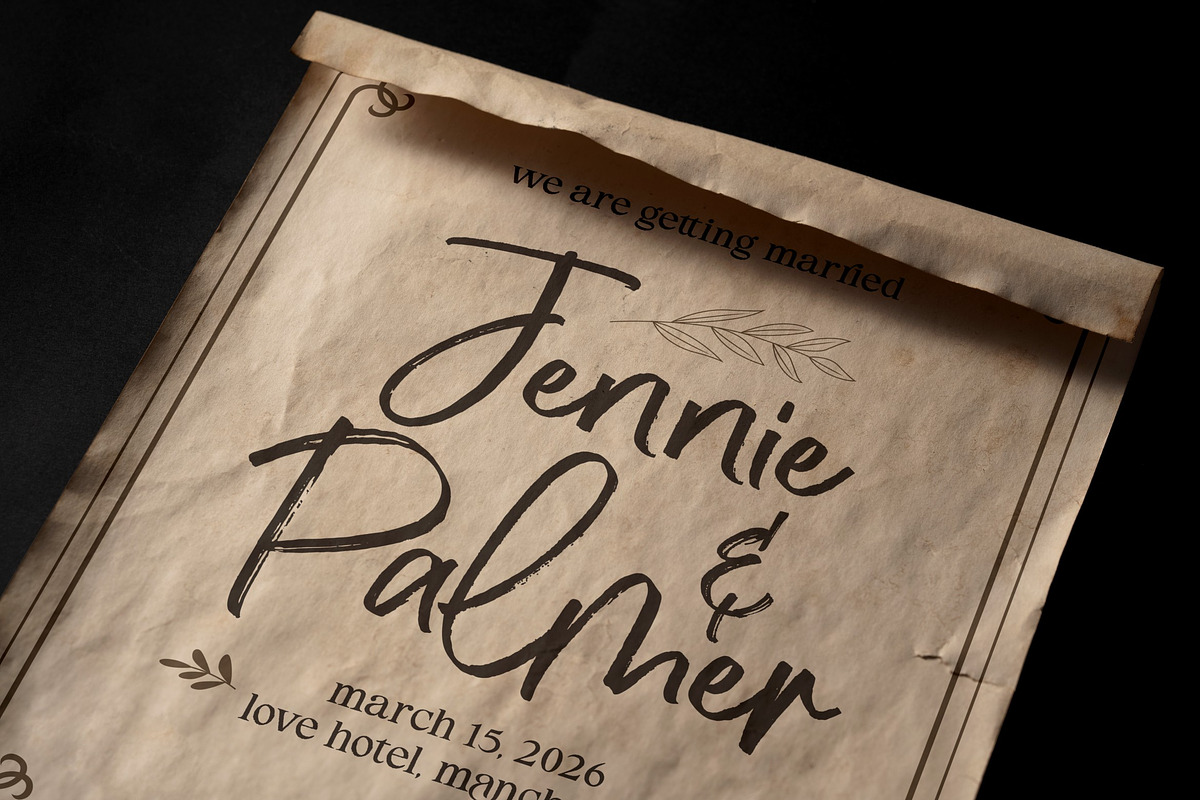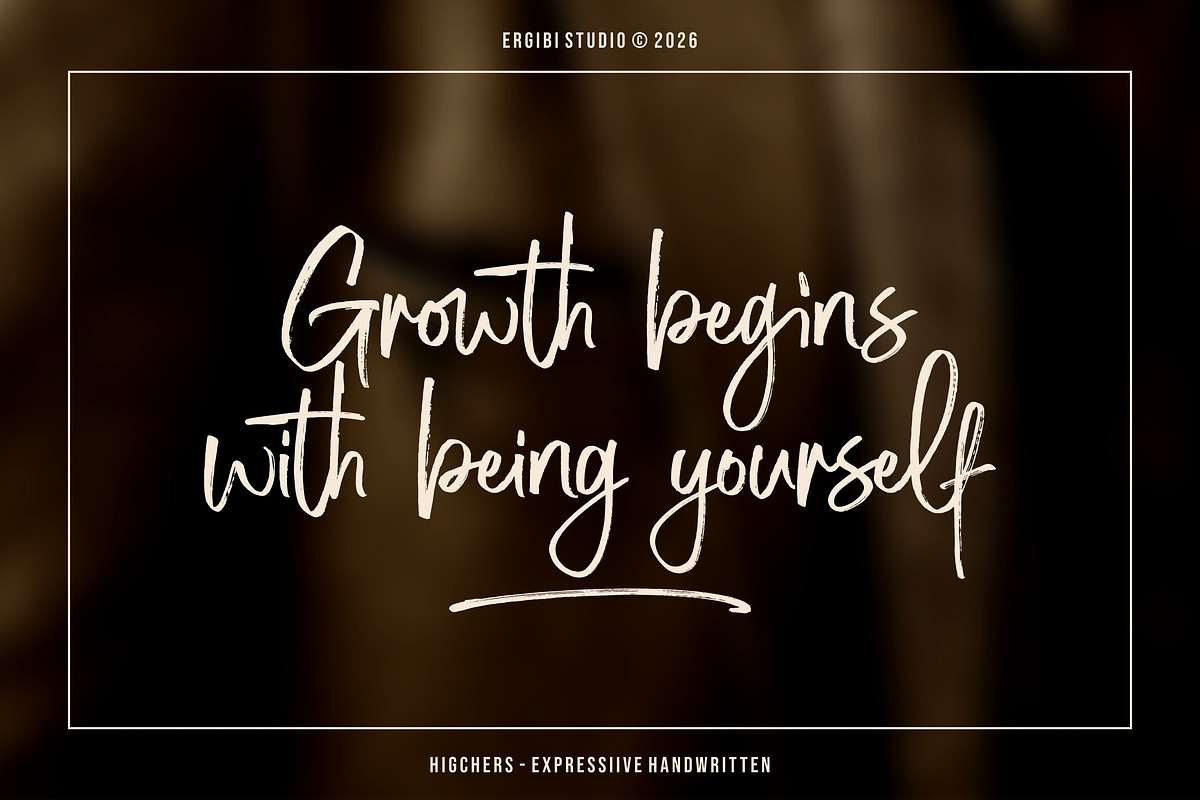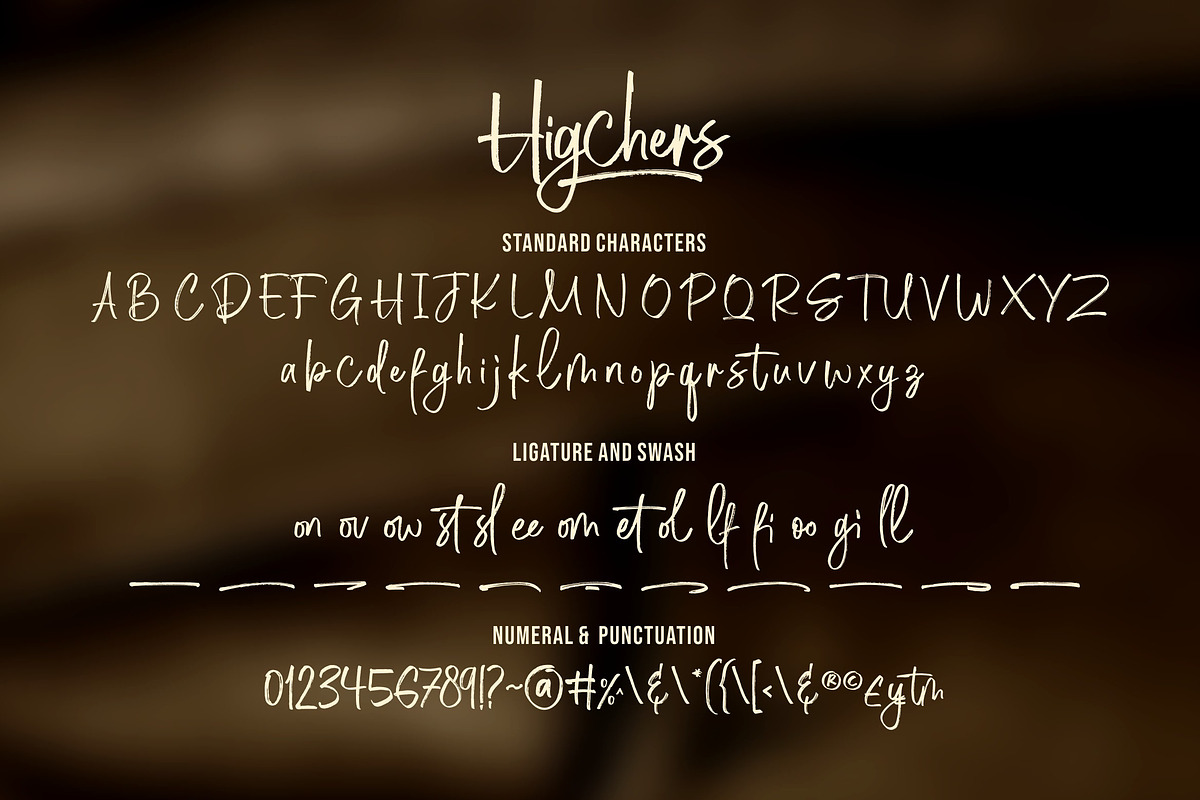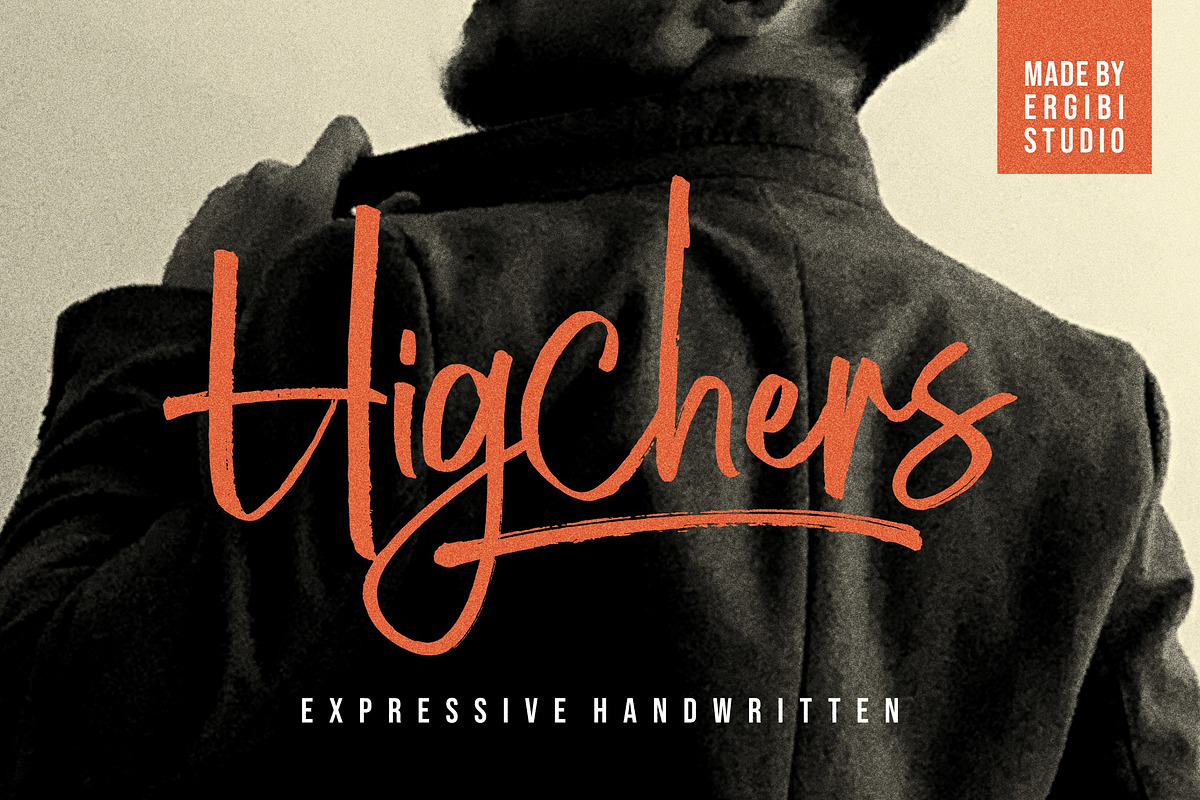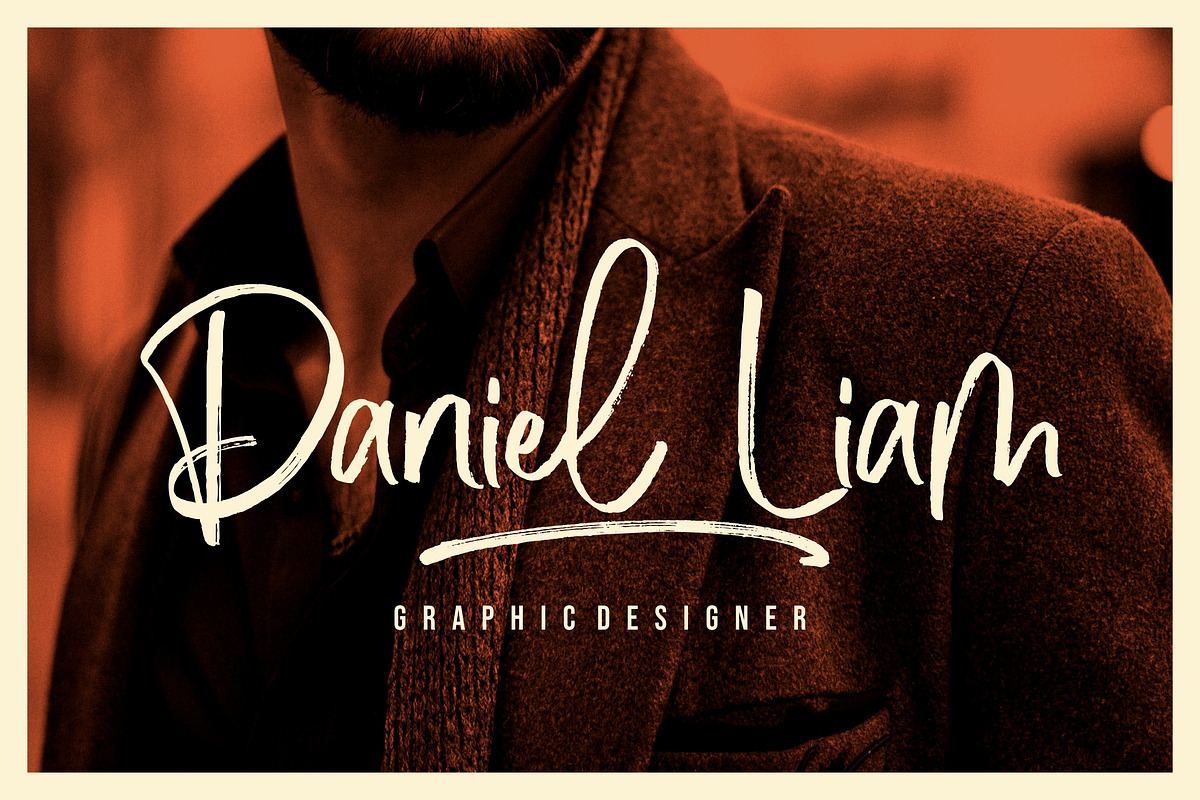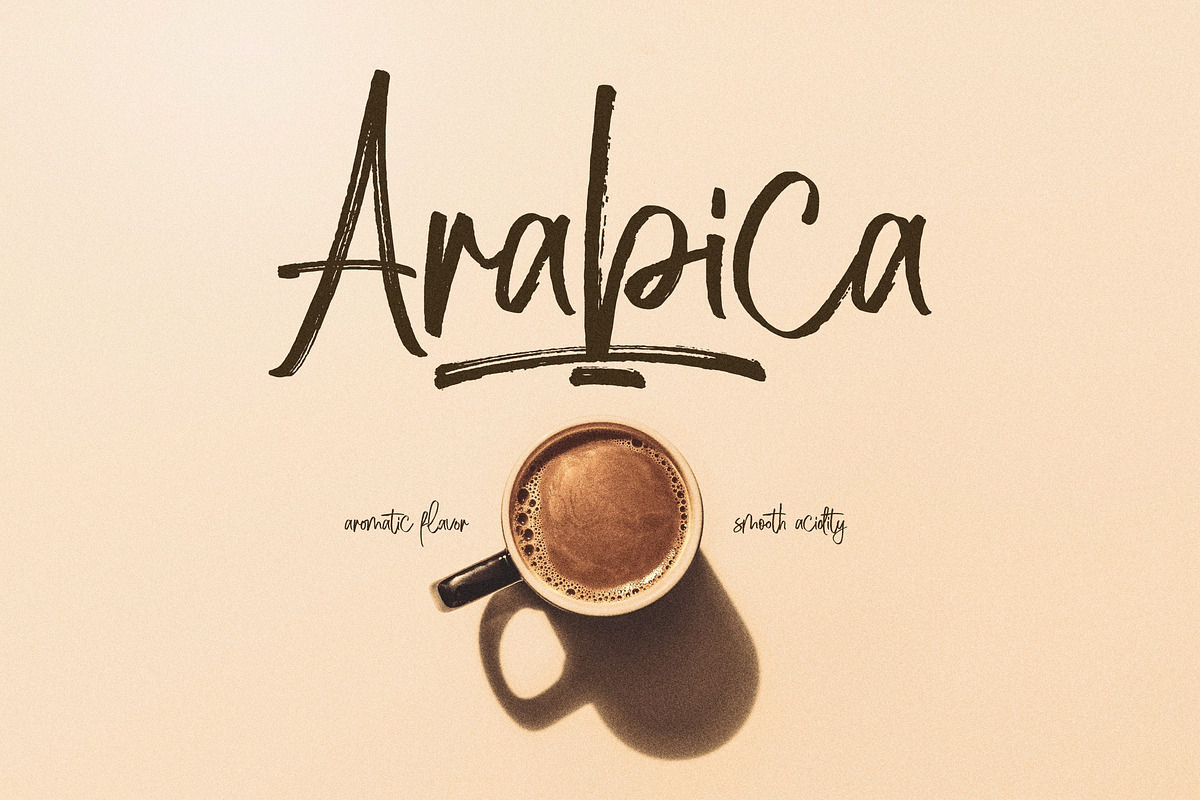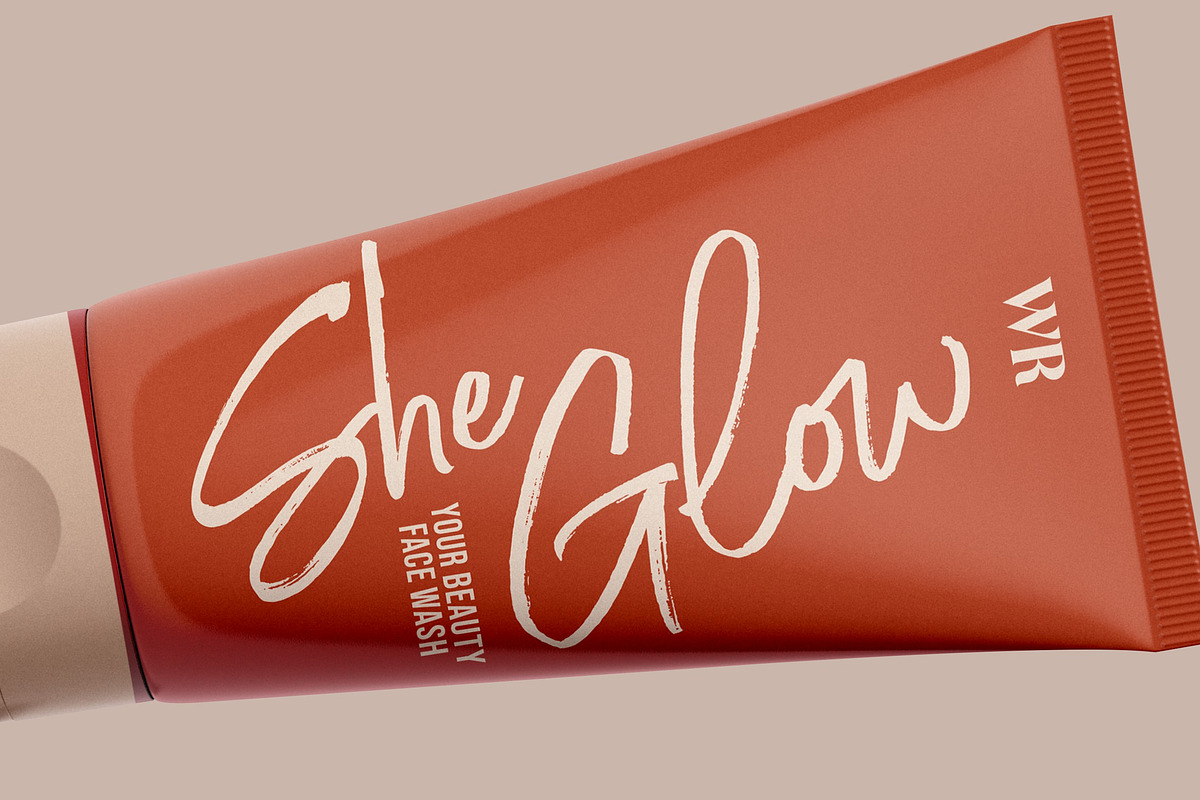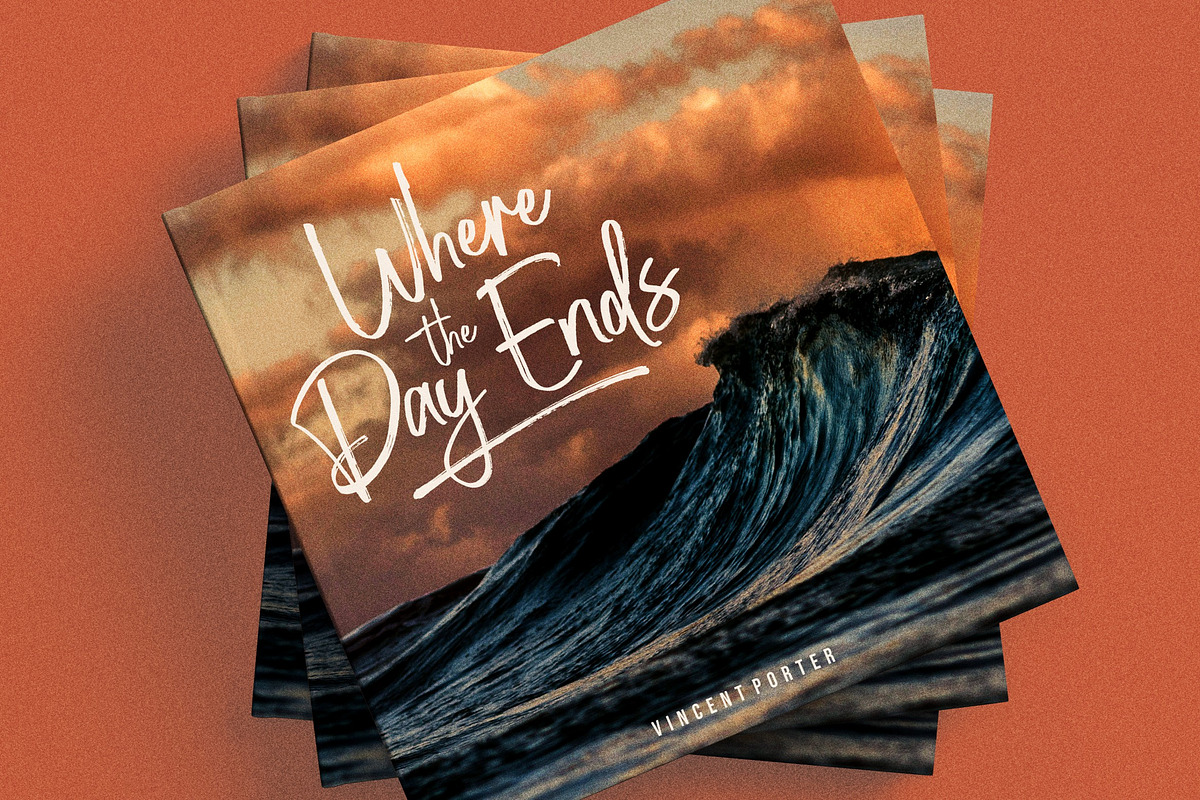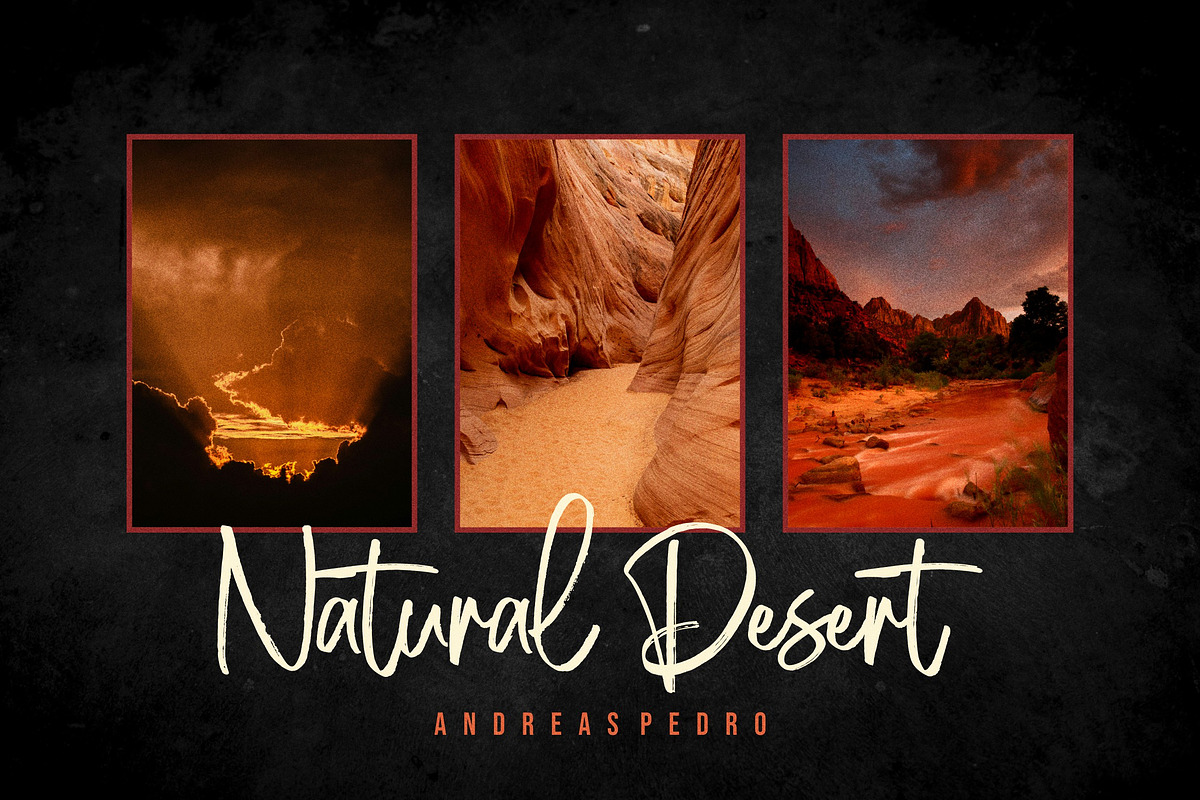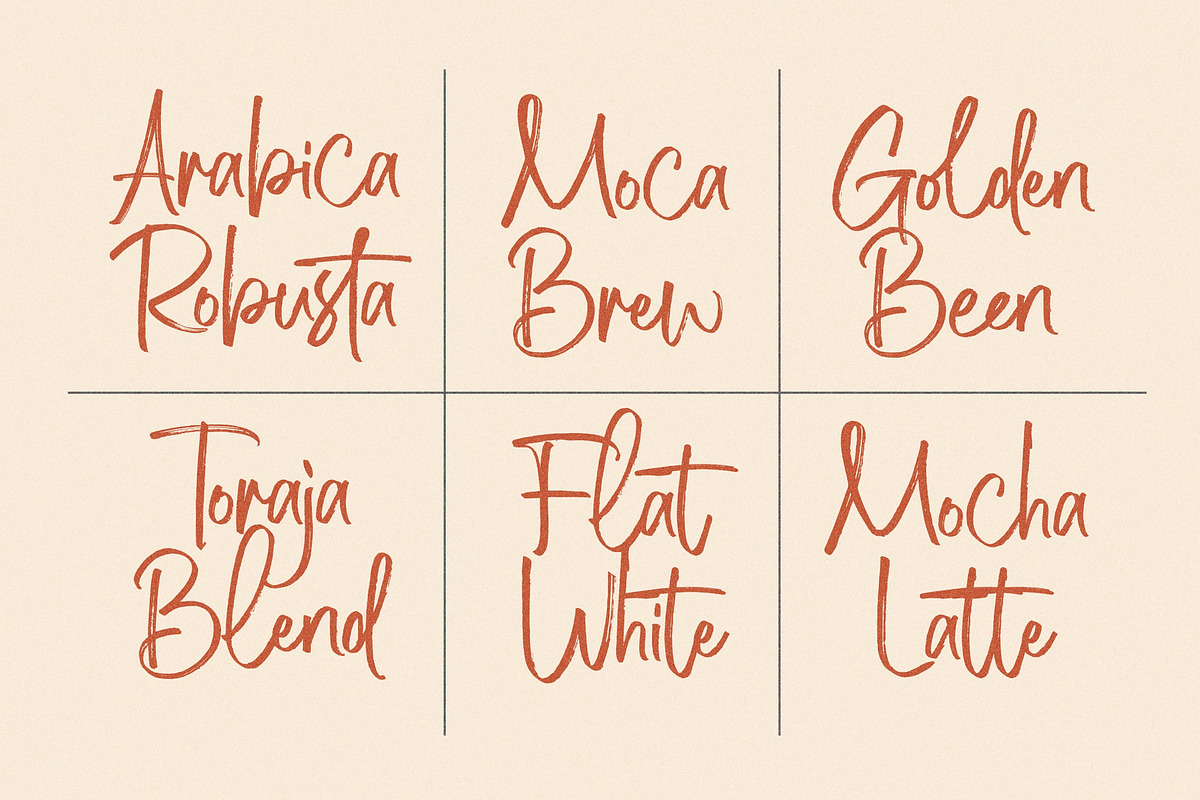
Higchers - Expressive Handwritten
Higchers is an expressive handwritten script font that captures the natural flow and emotion of real handwriting. Each character is crafted with dynamic strokes and organic curves, creating a lively and authentic script appearance that feels personal and full of character.
Perfect for branding, logos, packaging, social media, and creative design projects, Higchers brings warmth and elegance to any composition. Its natural movement and smooth connections make it ideal for designs that seek a genuine, stylish, and expressive handwritten touch.